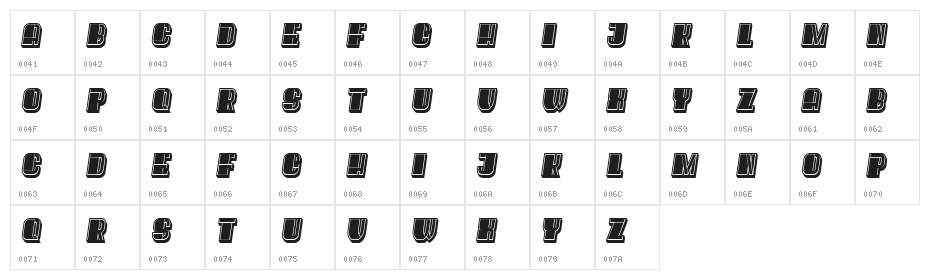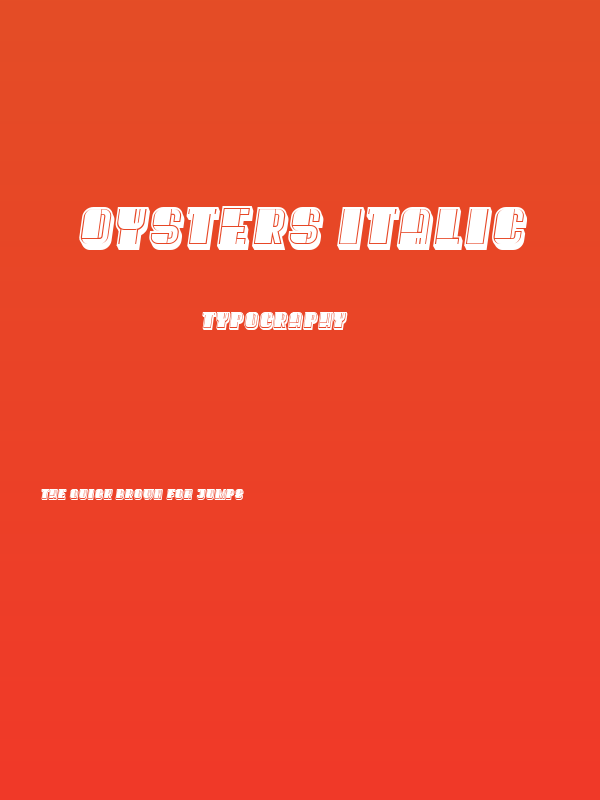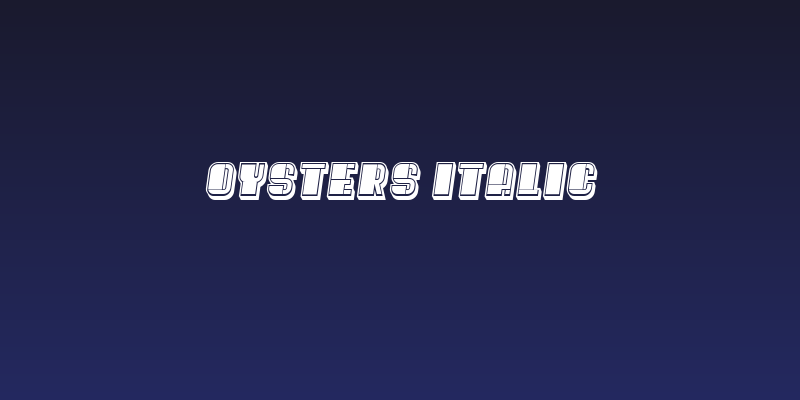
Oysters Italic Font
Oysters Italic Description
This font features a bold, italicized style with a strong, dynamic presence. The characters are outlined with a thick, black border, creating a striking contrast against the inner white space. The design is reminiscent of retro or vintage aesthetics, with a playful yet assertive tone. The letters are slightly slanted, enhancing the italic effect, and the overall structure is robust, making it ideal for attention-grabbing headlines or titles. The font's unique style is both decorative and functional, suitable for projects that require a bold statement.
| Proposed Projects | Ideal for vintage-themed posters, eye-catching headlines, branding materials, and creative design projects. |